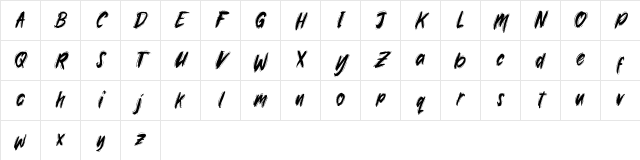
Complete Rawkin pickles demo Regular glyph index. Displaying only characters natively supported by Rawkin pickles demo Regular font.
Rawkin pickles demo is a composed and adaptable typeface that performs quietly and consistently across a wide range of design contexts.